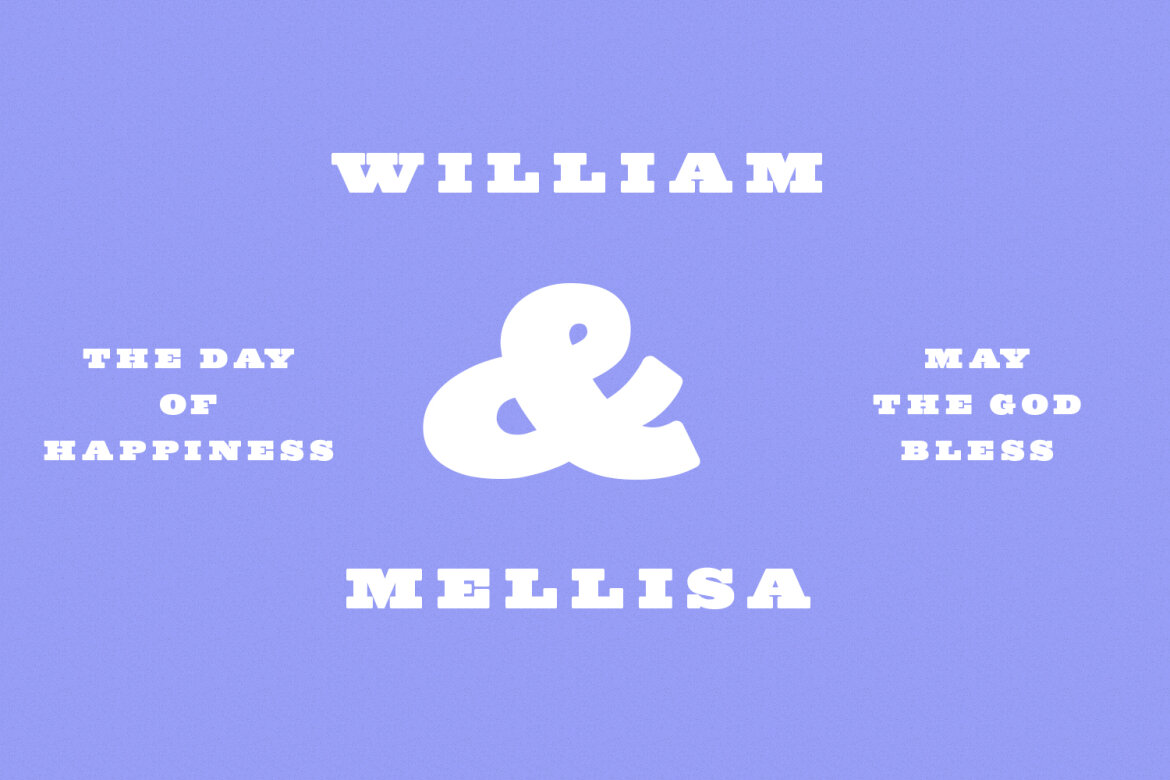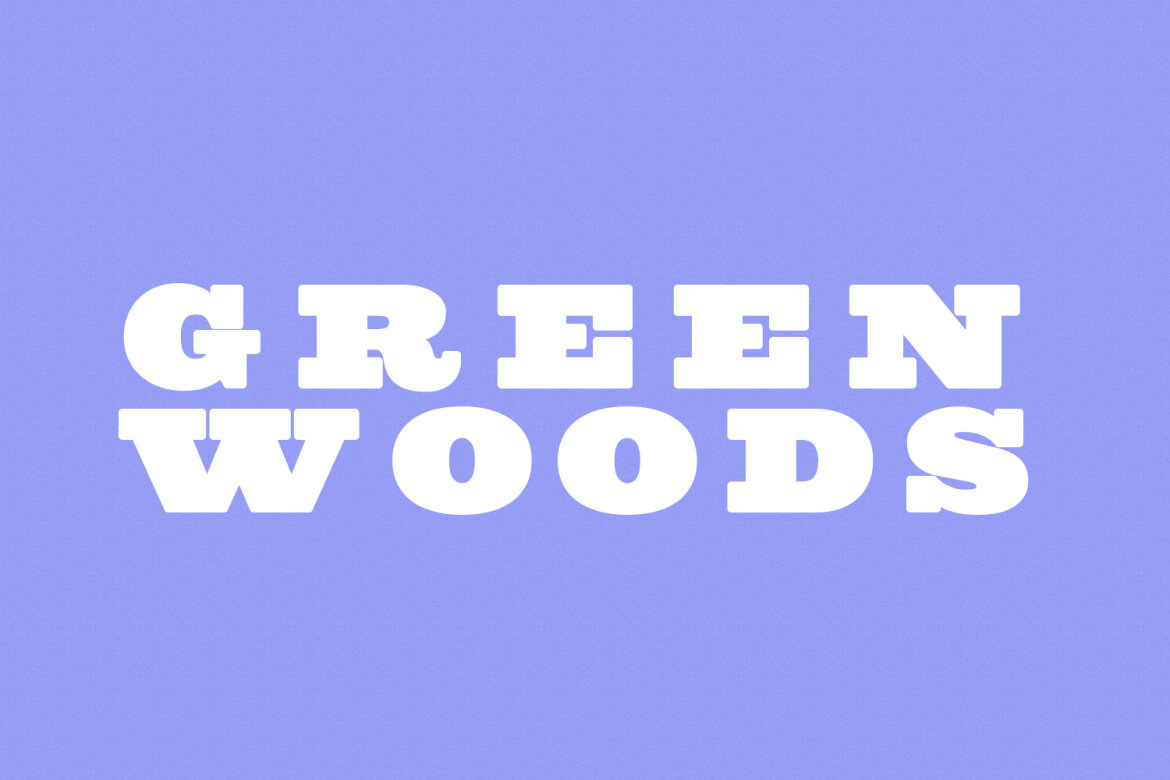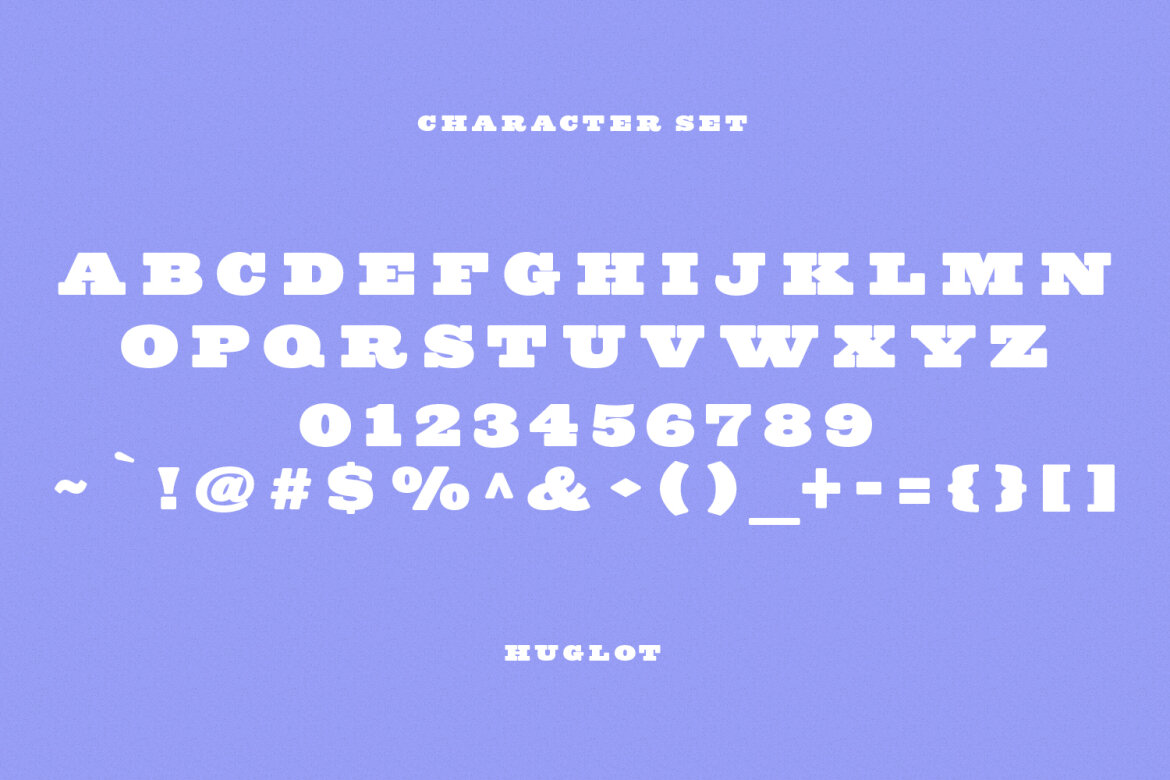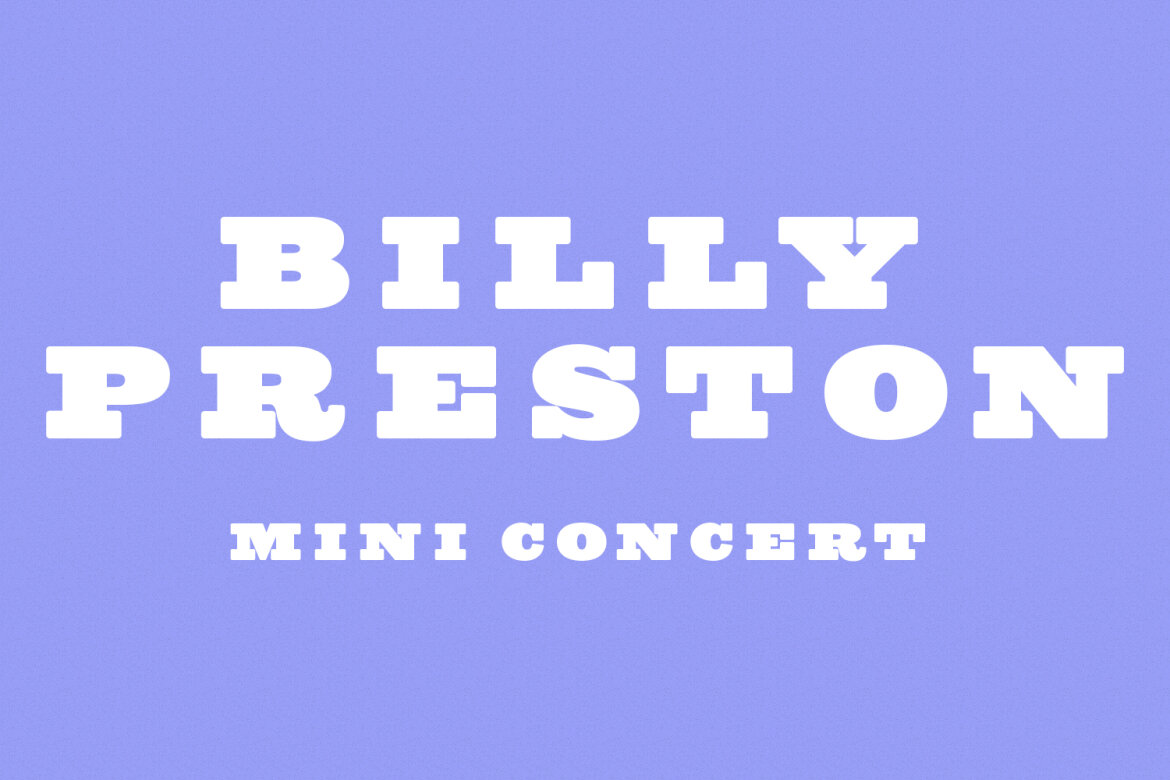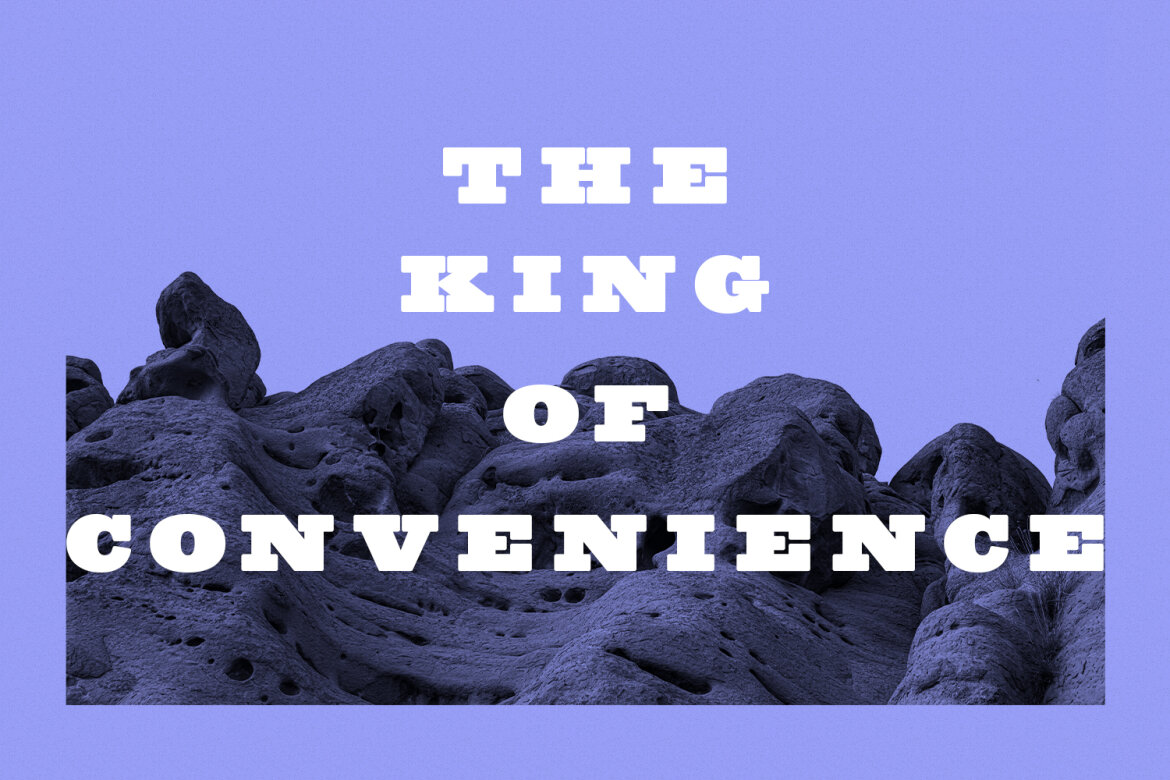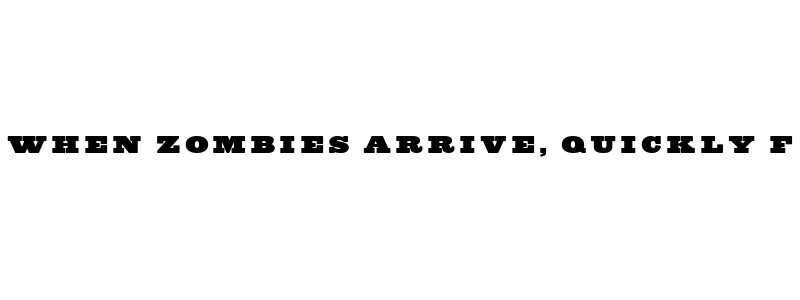
Merchy Slab Serif FREE Font
Merchy
Merchy is a Bold Slab Serif display font. Bold stroke, fun character with a bit of ligatures and alternates. To give you an extra creative work. Merchy font support multilingual more than 100+ language. This font is good for logo design, Social media, Movie Titles, Books Titles, a short text even a long text letter and good for your secondary text font with script or serif. Make a stunning work with Merchy font.